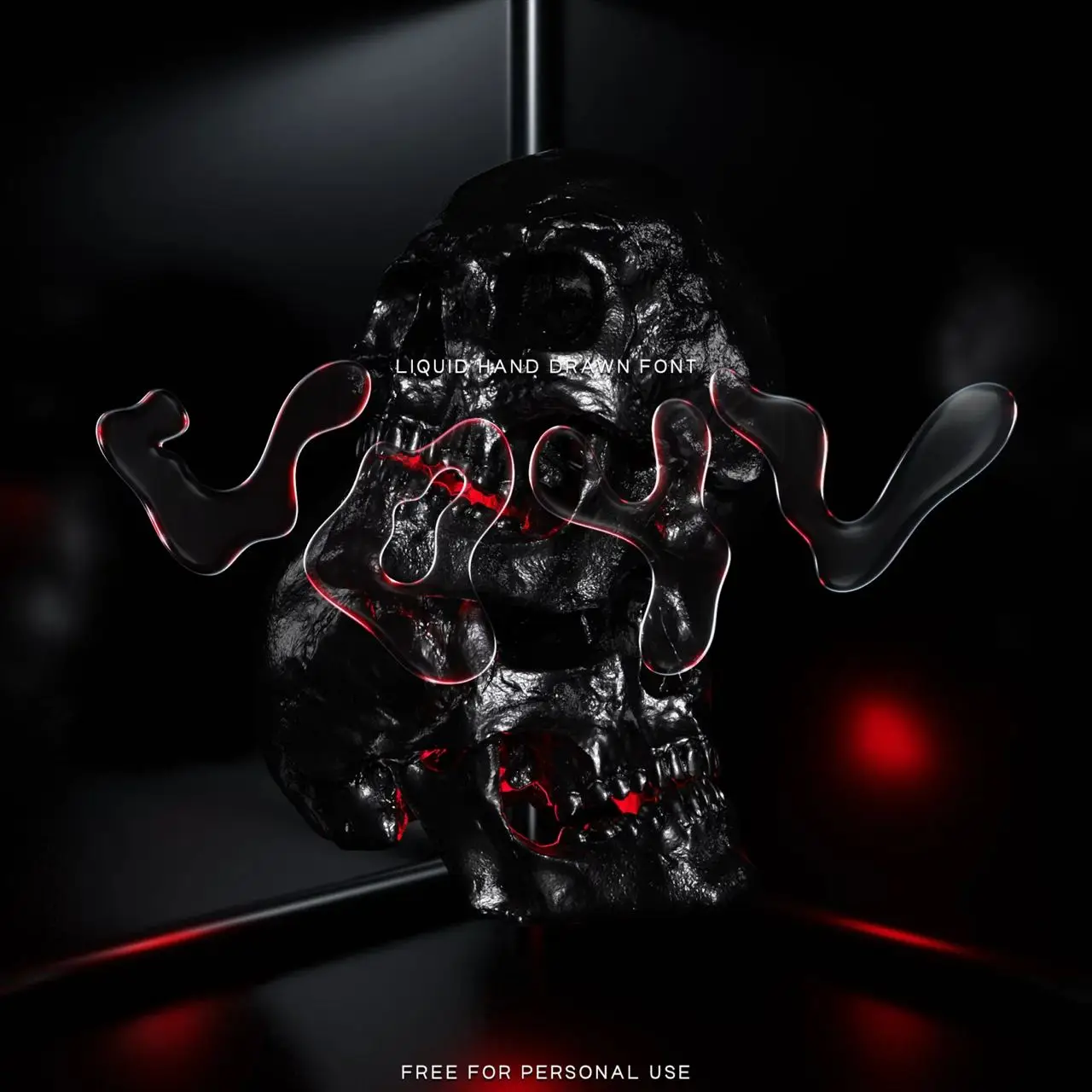
Introducing the Joyl-Liquid Font, a unique typeface that brings a sense of fluidity and creativity to your projects. This font features a modern design with a playful twist, making it perfect for branding, logos, and various digital applications.
- Ideal for eye-catching logos and branding materials.
- Great for web design, enhancing user interface elements.
- Perfect for print projects, including posters and flyers.